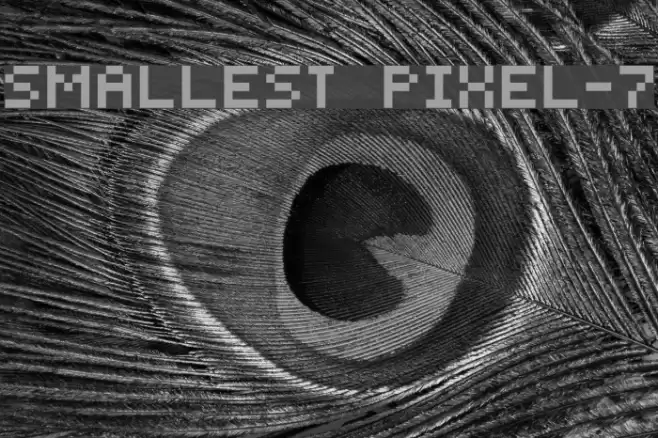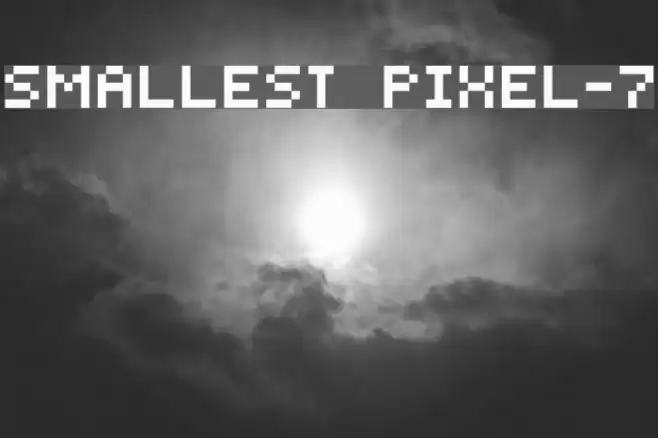
Smallest Pixel-7 Font
Smallest Pixel-7 Description
This font is a pixelated, monospaced typeface that embodies a retro, digital aesthetic reminiscent of early computer and video game graphics. Each character is constructed from a grid of pixels, giving it a blocky and geometric appearance. The uniformity in character width and height ensures a consistent and structured look, making it highly legible at small sizes. The font's simplicity and clarity are ideal for digital displays and environments where a nostalgic or technical feel is desired. Its design is straightforward, with no additional embellishments or curves, emphasizing functionality and clarity.
A pixelated, monospaced font with a retro digital aesthetic.
- Font: Smallest Pixel-7
- Proposed Projects: Ideal for retro video games, digital displays, coding environments, and tech-themed designs.
- Category: Monospaced
- Overall Style: Retro
- Use Case: Digital displays, Coding, Retro games